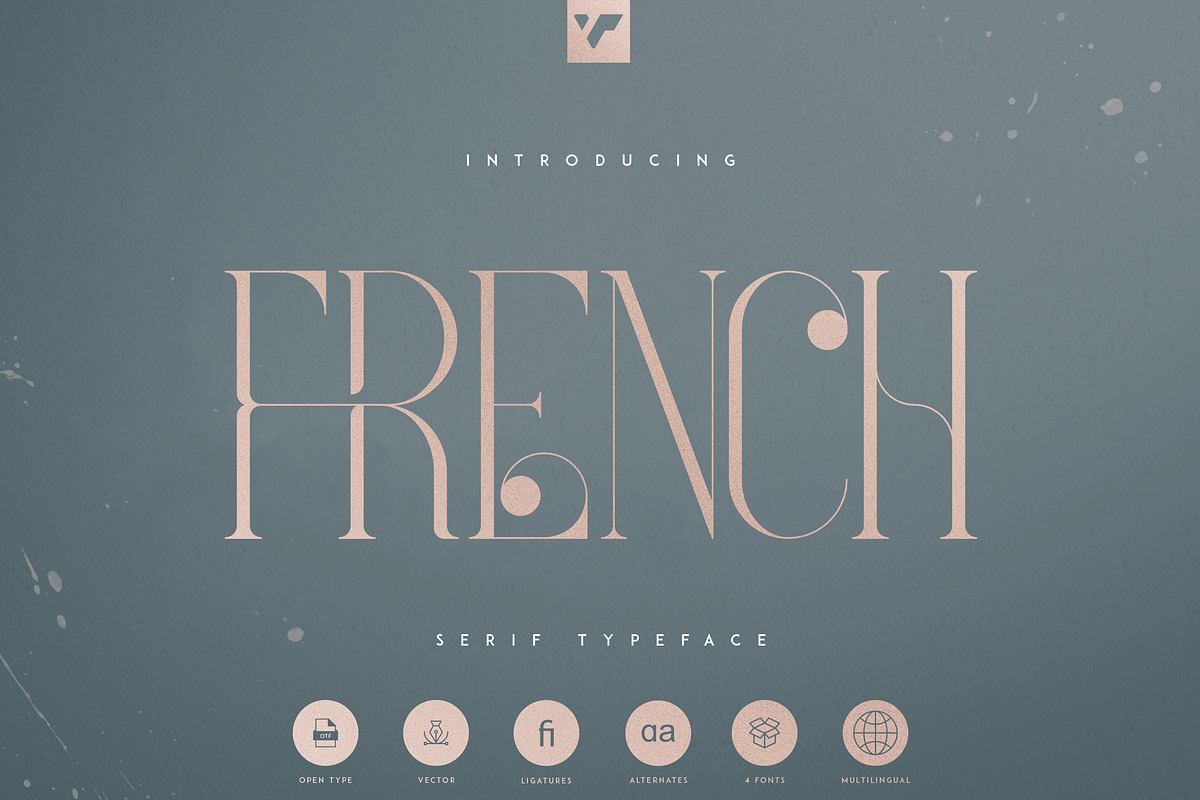
French Typeface - 4 Fonts Free Download is a versatile and elegant font collection that includes four distinct styles, perfect for a wide range of design projects. Inspired by classic French typography, this font family combines sophistication with modern flair, making it ideal for luxury branding, editorial design, restaurant menus, wedding invitations, and high-end fashion graphics.
Each style within the collection offers a unique approach, whether you're looking for clean, minimalist serifs or more decorative, artistic letterforms. The variety of options ensures that French Typeface can be used in both formal and creative designs.